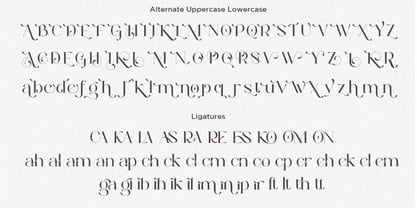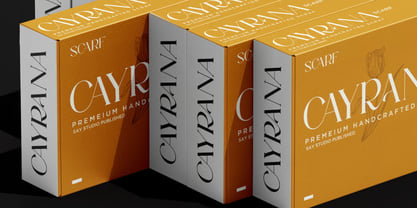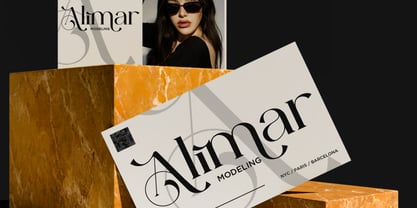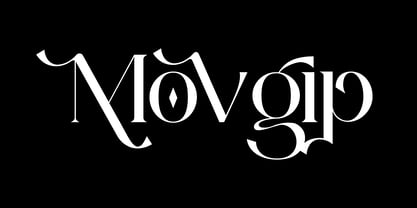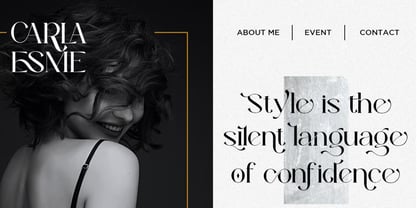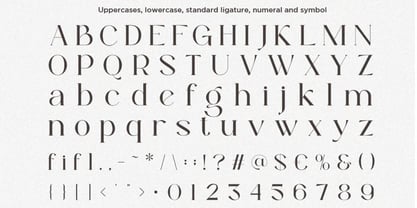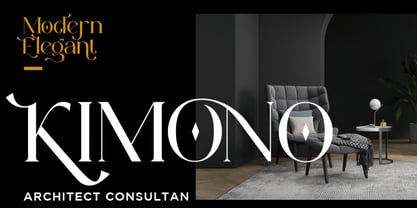
Movgip
Movgip is an elegant modern serif font that masterfully combines luxurious curves, sharp contemporary details, and timeless sophistication. Designed for premium visual identities, Movgip features refined contrast, artistic ligatures, and beautifully crafted ornamental strokes that create a striking balance between classic elegance and modern style.
Every letter in Movgip is thoughtfully designed to deliver a sense of exclusivity and refinement, making it the perfect choice for designers working on high-end branding, fashion editorials, beauty packaging, luxury logos, magazine layouts, and upscale marketing materials. Its graceful character and sophisticated aesthetic allow brands to communicate confidence, prestige, and elegance with ease.
Whether you're building a luxury fashion label, designing a premium cosmetic package, or creating captivating editorial headlines, Movgip provides the versatility and visual impact needed to make every project stand out.
✿ Key Features:
• Elegant Modern Serif Design: A refined blend of classic luxury and contemporary sophistication.
• Artistic Ligatures: Beautifully crafted ligatures for seamless and stylish typography.
• Stylistic Alternates: Unique alternate characters for personalized and distinctive designs.
• Regular & Italic Styles: Flexible font family for dynamic and expressive typography.
• Luxury Contrast Details: Sharp and refined letterforms that create visual elegance.
• Ornamental Strokes: Sophisticated design elements that add premium character.
• Multilingual Support: Includes accented characters for international design projects.
✿ Perfect For:
• Luxury Branding & Logo Design: Create memorable and prestigious brand identities.
• Fashion Editorials & Magazines: Ideal for headlines, covers, and high-end layouts.
• Beauty & Cosmetic Packaging: Add elegance to skincare, fragrance, and beauty products.
• Wedding Invitations & Stationery: Perfect for sophisticated event designs.
• Product Packaging & Labels: Enhance premium product presentation.
• Social Media & Marketing Campaigns: Design luxurious and eye-catching promotional content.
• Creative Typography Projects: Stunning for quotes, presentations, and artistic compositions.
Transform your creative vision with Movgip—an elegant modern serif font featuring stylish ligatures, unique alternates, and luxurious details. Perfect for luxury branding, fashion editorials, beauty packaging, logos, magazines, invitations, and premium design projects that demand sophistication and excellence.